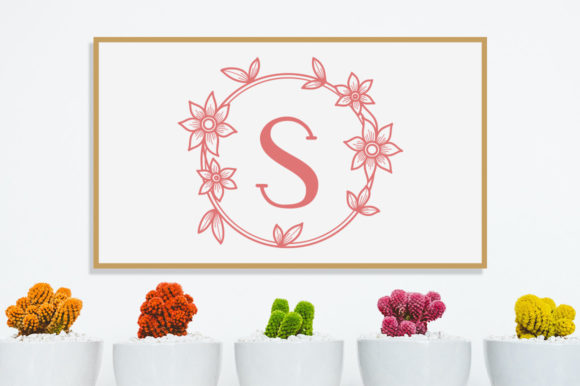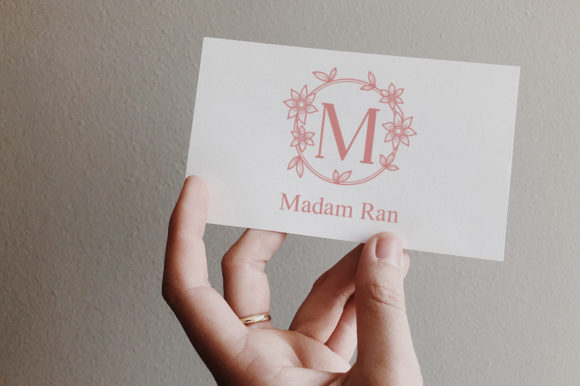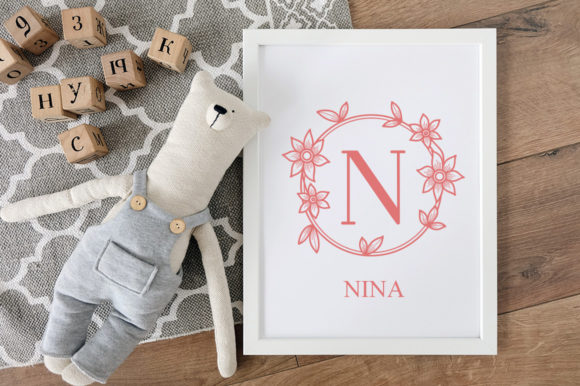
Introduction to Fellisa Monogram Font
Fellisa Monogram is a stunning, playful and charming decorative font, that is easy to remember.
Use it for a wide range of design occasions such as logos, apparel, photography, watermarks, quotes, blog headers, posters, weddings, invitations, stationery, branding, and much more .
Key Features of Fellisa Monogram Font